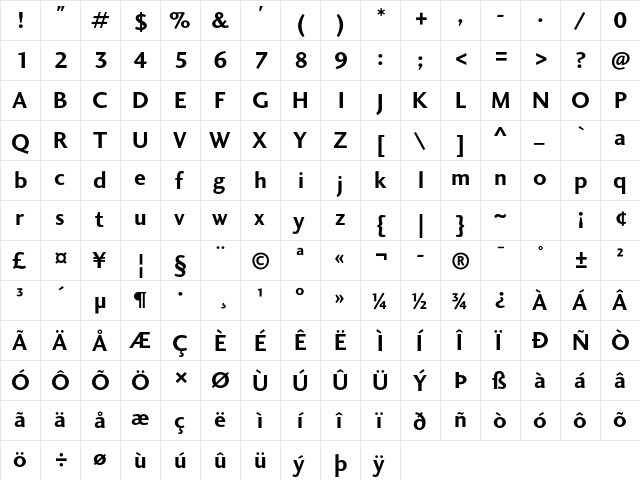
Charlotte Sans Std Bold
| Designer | Michael Gills |
Design Context for Charlotte Sans Std Typeface
Charlotte Sans Std is a composed and adaptable typeface that performs quietly and consistently across a wide range of design contexts. The heavy weight commands attention and anchors typographic hierarchies.